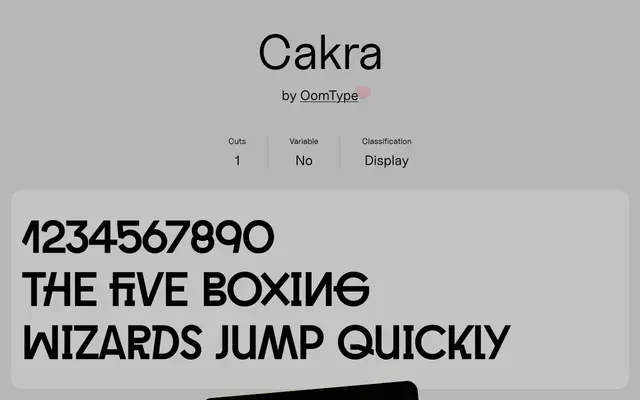
Cakra
A single-cut display typeface by OomType, available free for commercial and personal use under the SIL Open Font License.
Listed under Display classification by the foundry; a single-cut decorative face not suited to text setting.